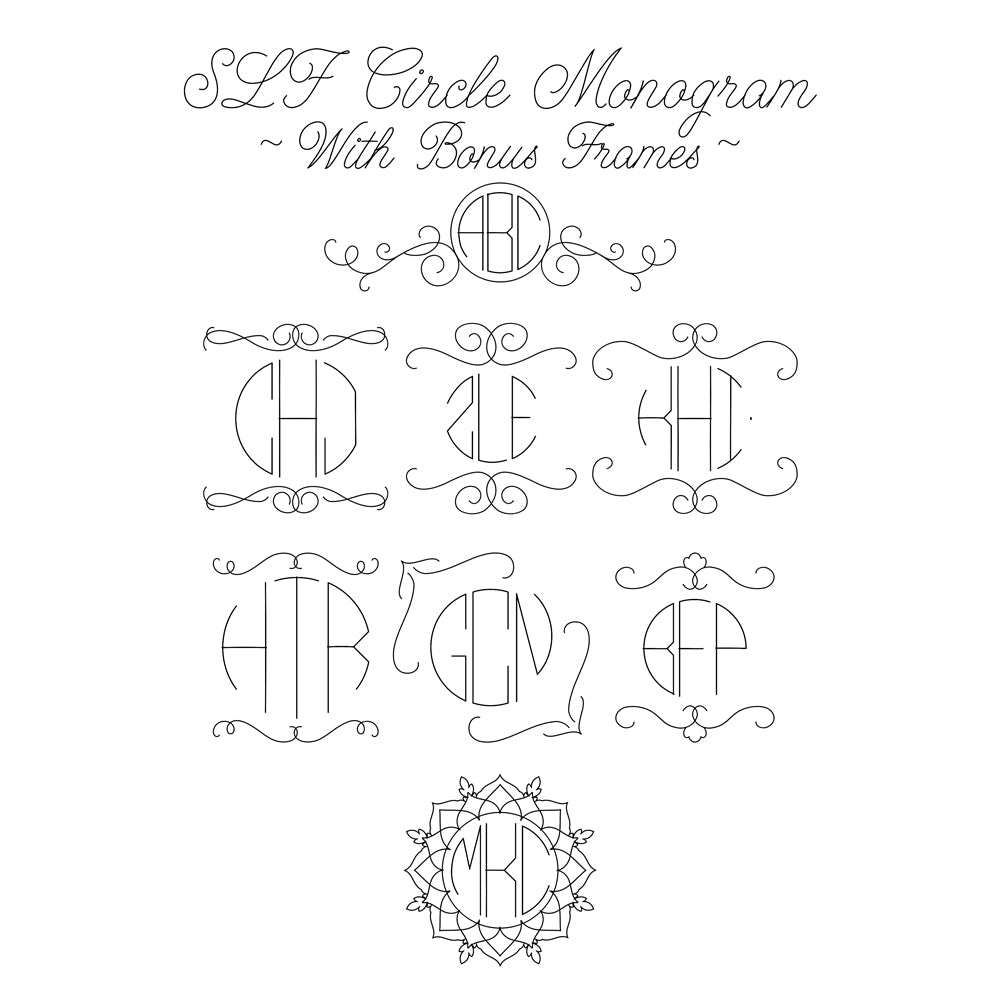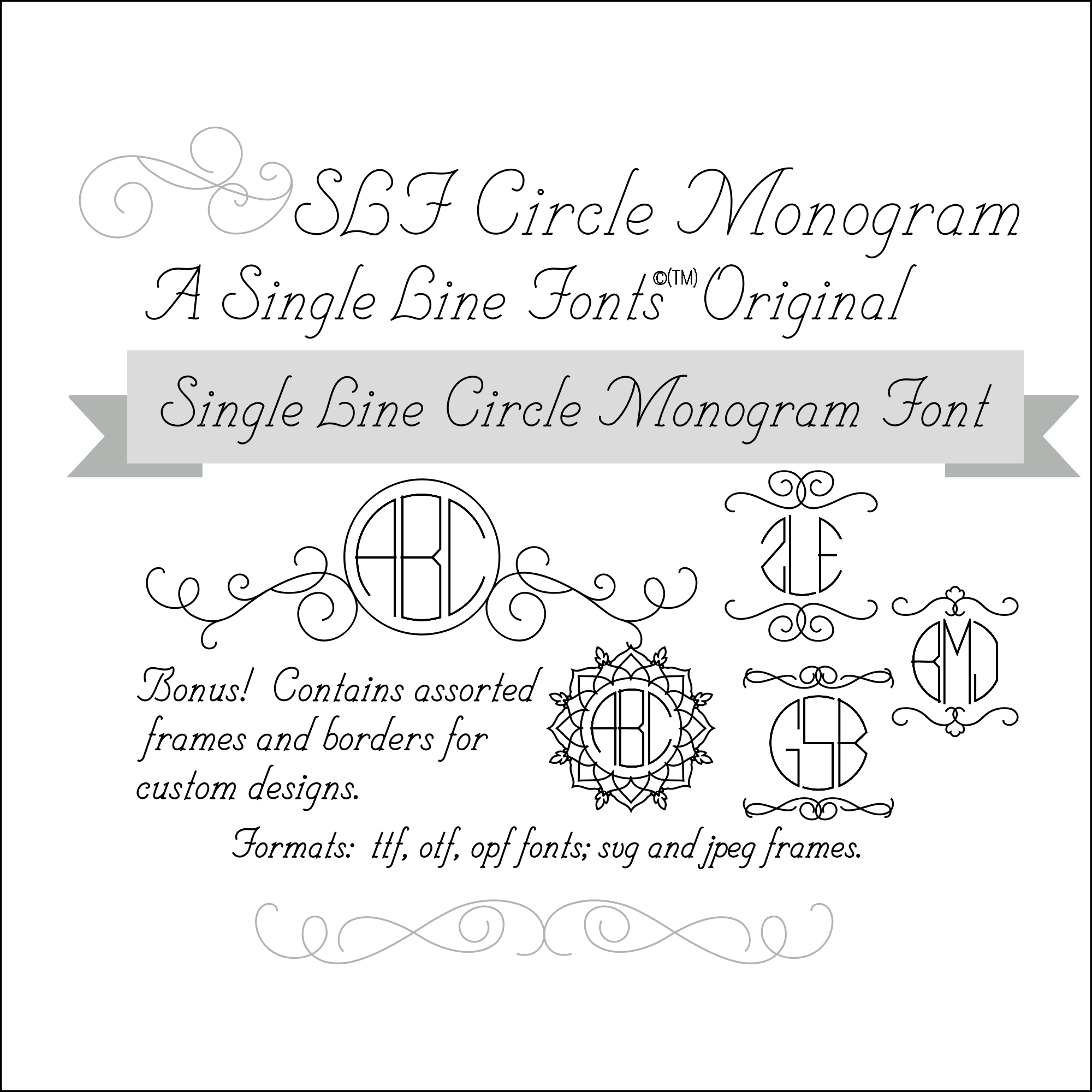
Single Line Font "Circle Monogram" with Bonus Frames
SLF Circle Monogram
This monogram font is designed to be used in a three-letter format: a monogram with lowercase, Uppercase, and lowercase letters.  Customarily, the first name initial is on the left (lowercase); the last name initial is in the center (Uppercase), and the middle name initial is on the right (lowercase).  For married or engaged couples, you would use the last name initial in the center, with the groom’s first name initial on the left and the bride’s first name initial on the right.
Gift items for weddings and other special occasions are made even more meaningful when they are accompanied by a monogrammed card.   Bride and groom initials can be used on place cards for weddings, thank you cards, and other stationery items.  You can add a monogram to your personal business or calling cards as a tasteful touch that will truly stand out and be remembered.